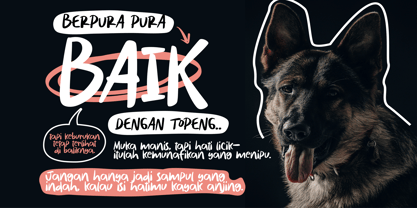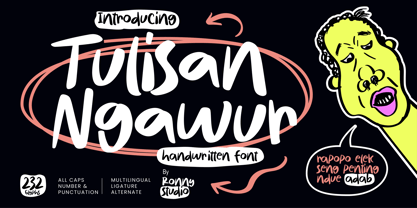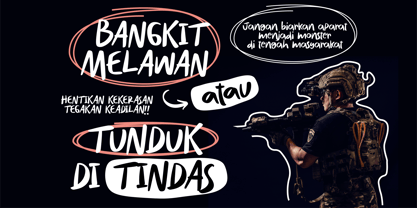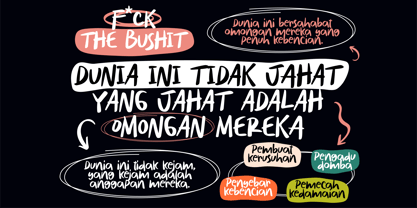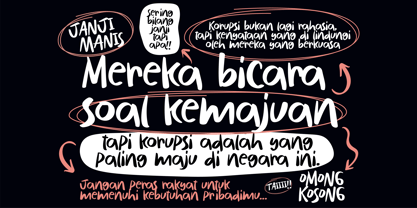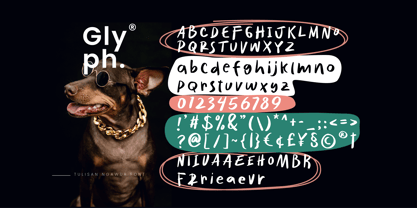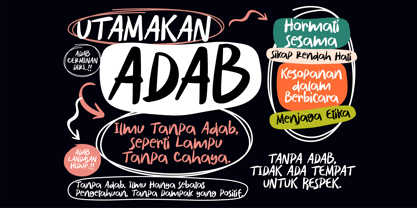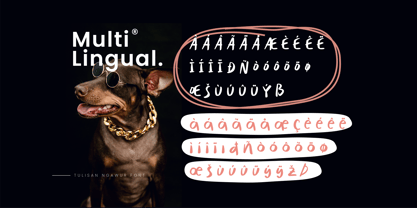
Tulisan Ngawur
by Ronny Studio
The Tulisan Ngawur Font Family was designed by Rony Rizki Jaya and published by Ronny Studio. Tulisan Ngawur contains 2 styles and family package options. More about this family
Tulisan Ngawur is a unique handwritten font with a casual style that is full of character! This font is designed to give a relaxed, creative, and slightly "quirky" feel to every design. Suitable for projects that require a playful, fun, and out-of-the-box impression, such as poster designs, merchandise, social media, or other creative projects.
Designers: Rony Rizki Jaya
Foundry: Ronny Studio